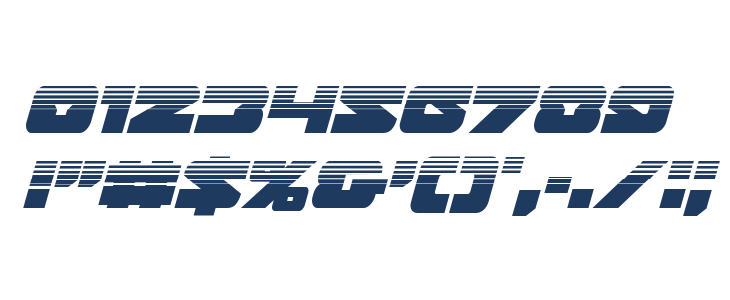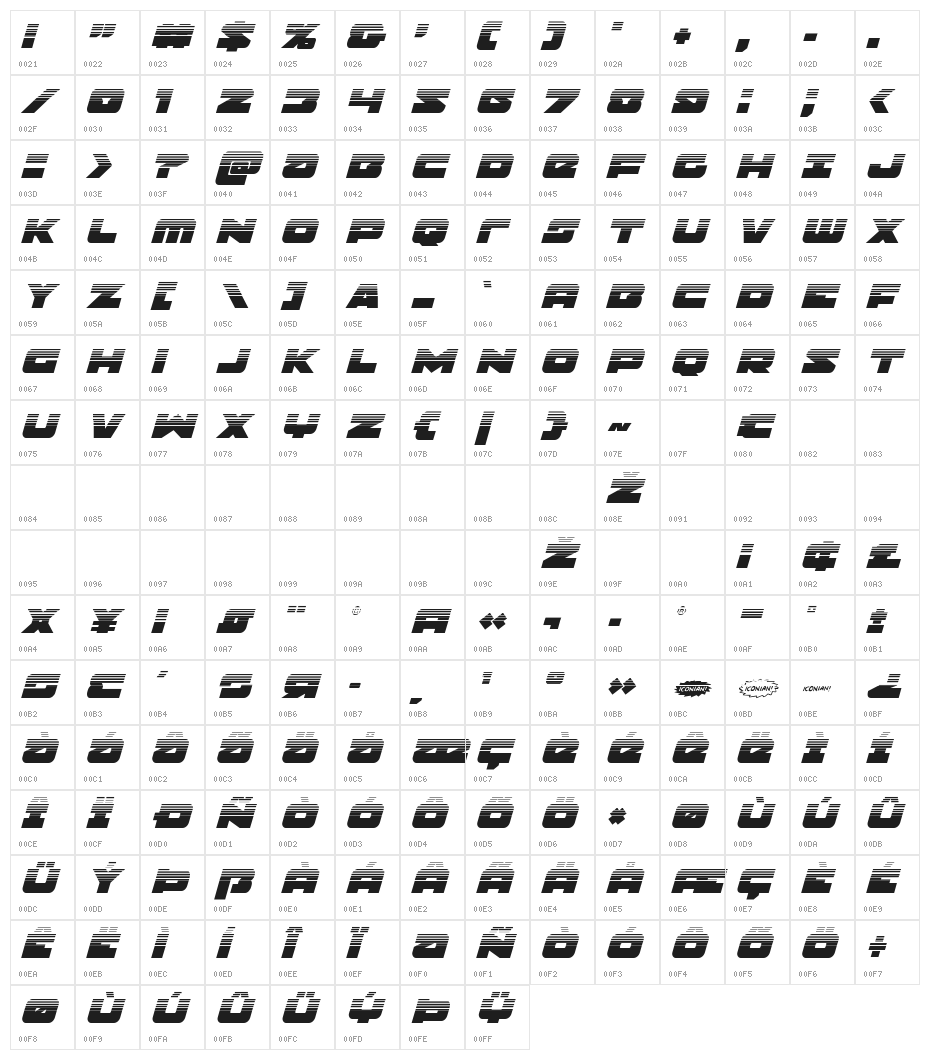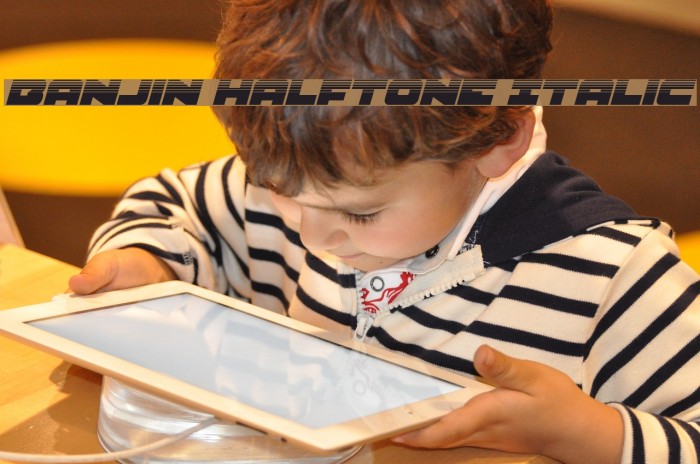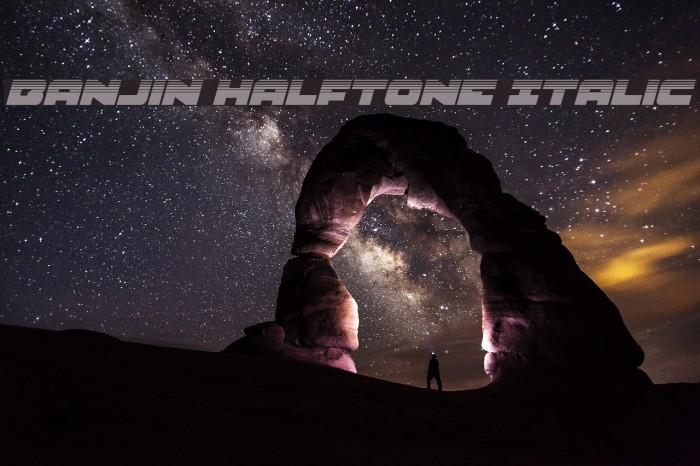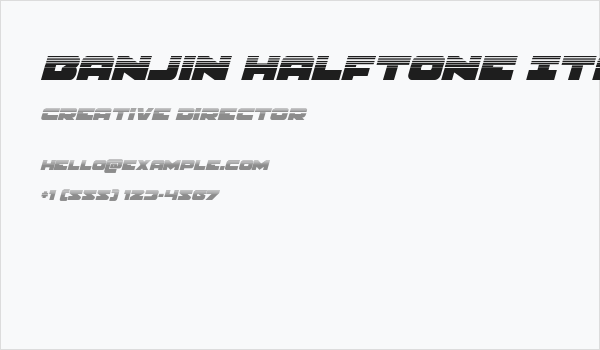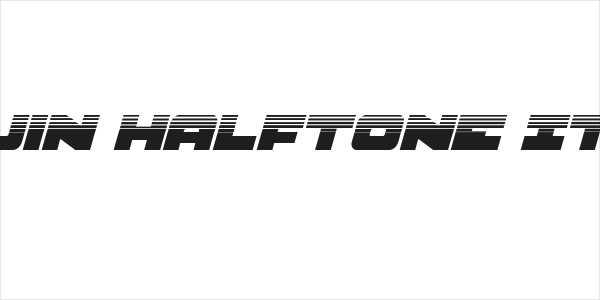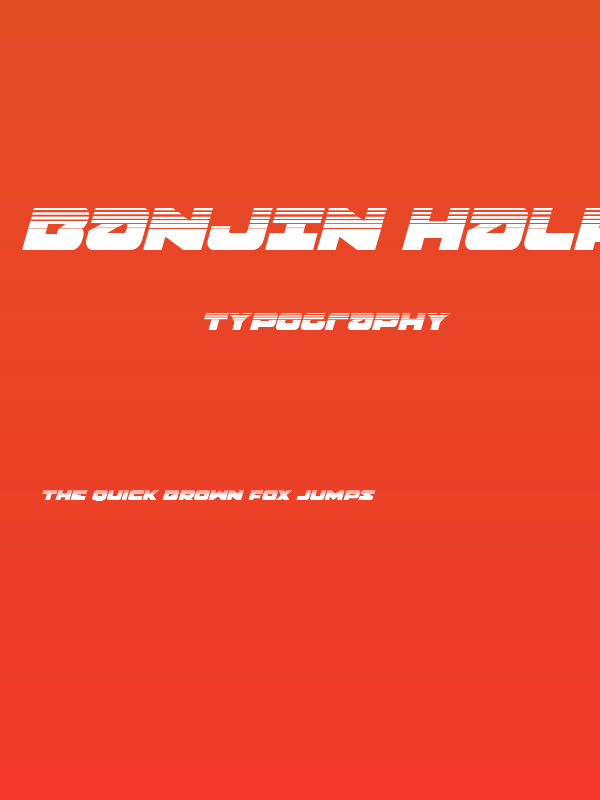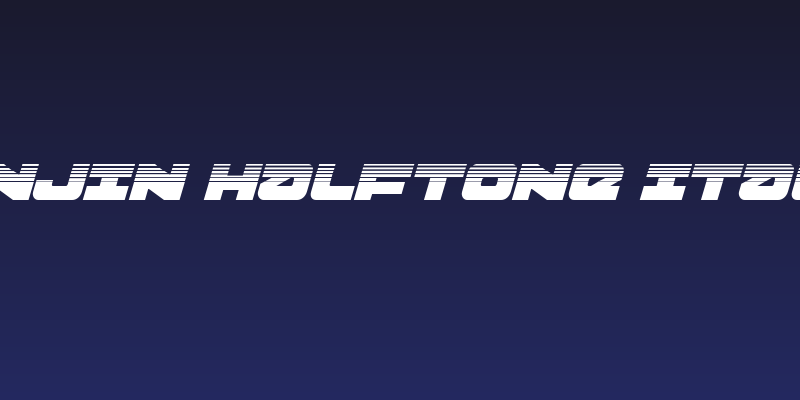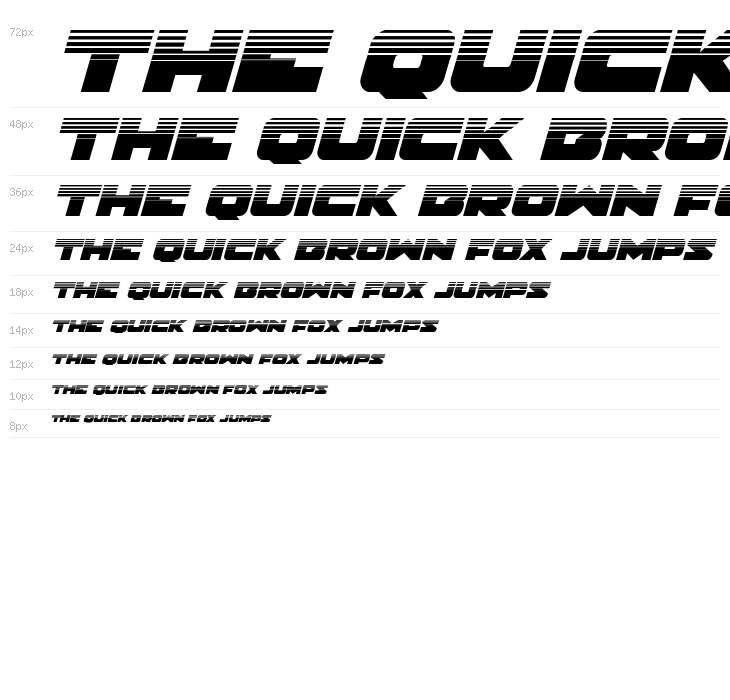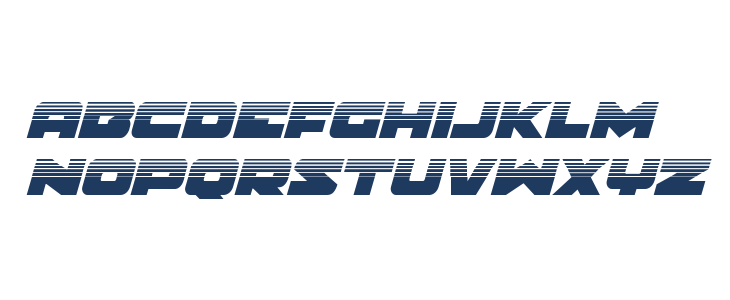
Banjin Halftone Italic Font
Banjin Halftone Italic Description
This font features a bold, italicized style with a distinctive halftone effect, creating a dynamic and futuristic appearance. The characters are designed with horizontal lines that give a sense of motion and speed, making it ideal for modern and edgy designs. The uppercase and lowercase letters maintain a consistent width, while the numbers and special characters follow the same stylistic approach. The overall design is striking and attention-grabbing, suitable for projects that require a bold statement.
Proposed ProjectsIdeal for sports branding, futuristic posters, video game titles, and dynamic advertising campaigns.